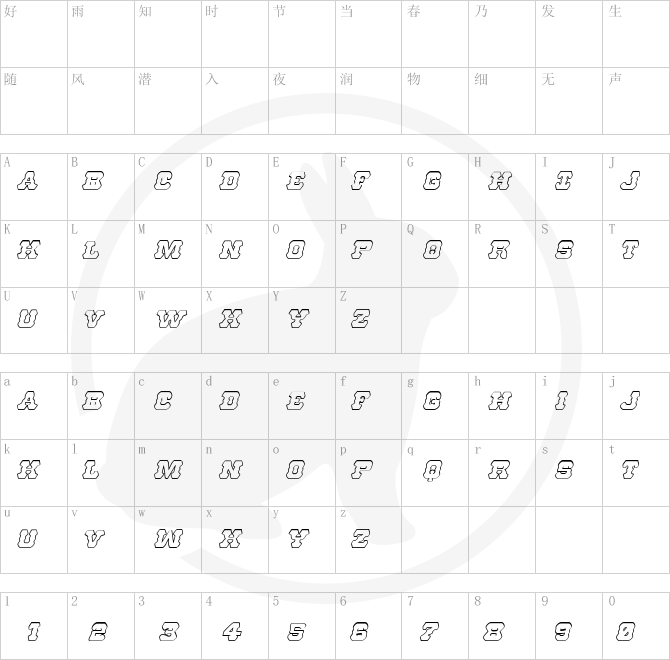
- Font Name:U.S. Marshal Shadow Italic
U_S-Marshal-Shadow-Italic.ttf is a very beautiful artistic font, U_S-Marshal-Shadow-Italic.ttf is widely used in the design and printing of various books and pictures,U_S-Marshal-Shadow-Italic.ttf has a strong visual impact,U_S-Marshal-Shadow-Italic.ttf is a commonly used font in newspapers, magazines and books, and is used in posters, e-commerce Poster design, store design, logo design, font design and other fields.U_S-Marshal-Shadow-Italic.